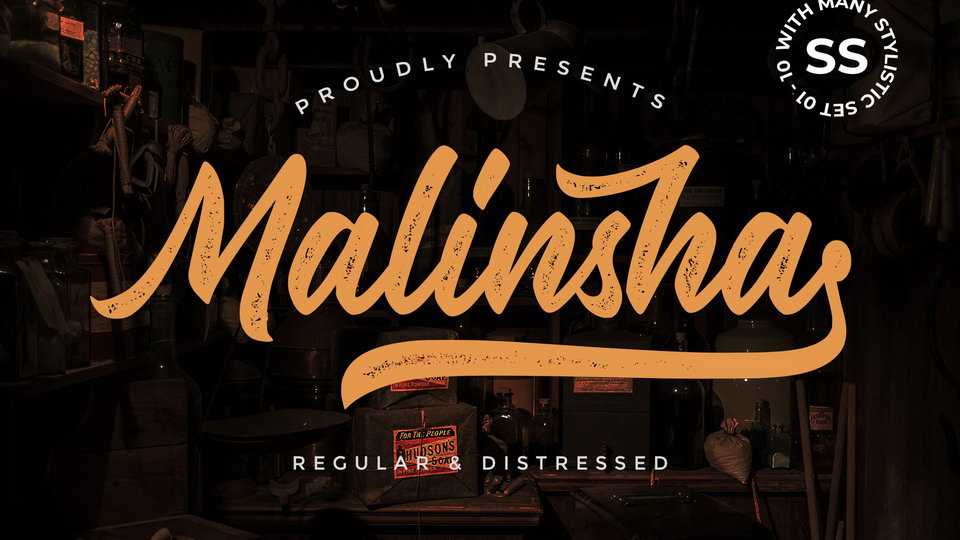
Download Malinsha font, a flowing handwritten font, featuring a vintage style. Malinsha looks beautiful on badges, labels, menus, packaging, quotes, greeting cards, logos and more.